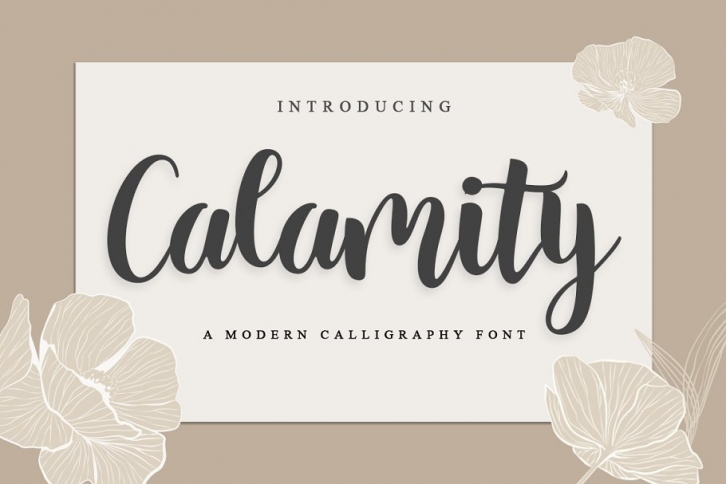
Calamity FONT Download
The Calamity is a stylish script font. It has a modern and classy look which can be used to add an extraordinary touch to your designs.
Can be used for logos, branding, invitations, stationery, wedding designs, social media, advertisements, labels, watermarks and more!